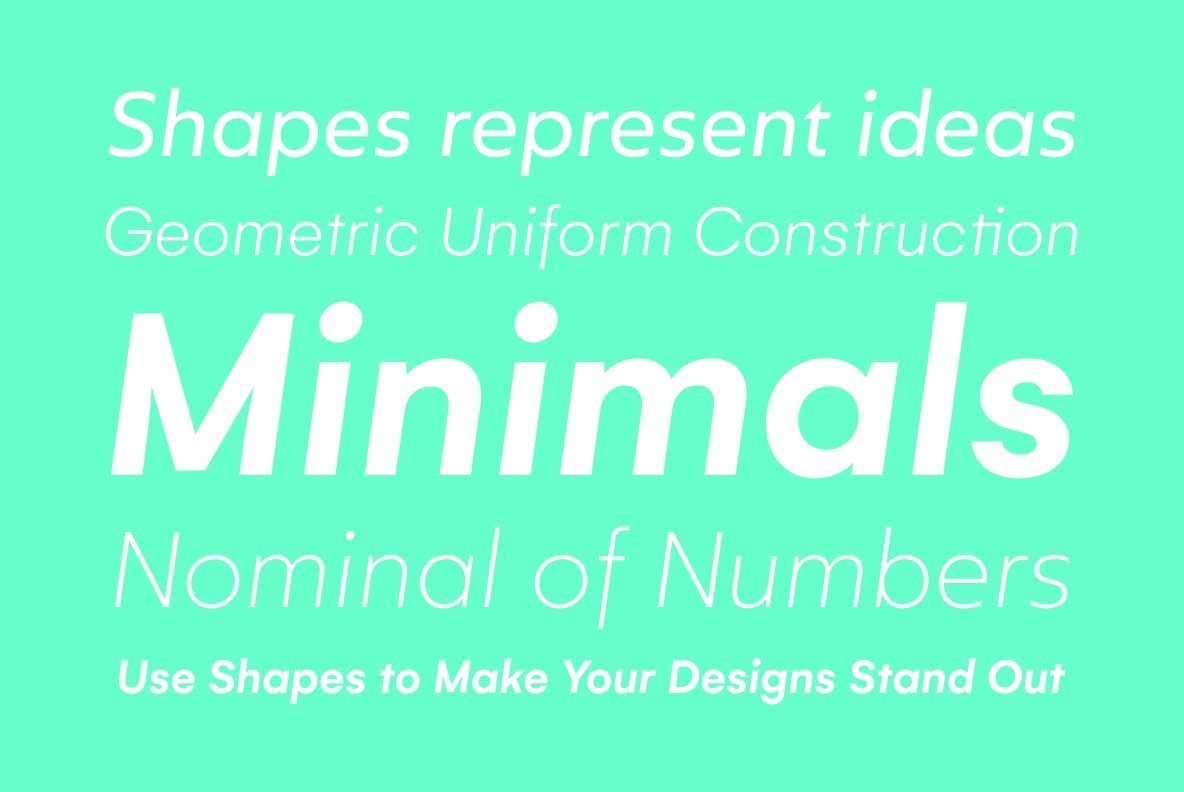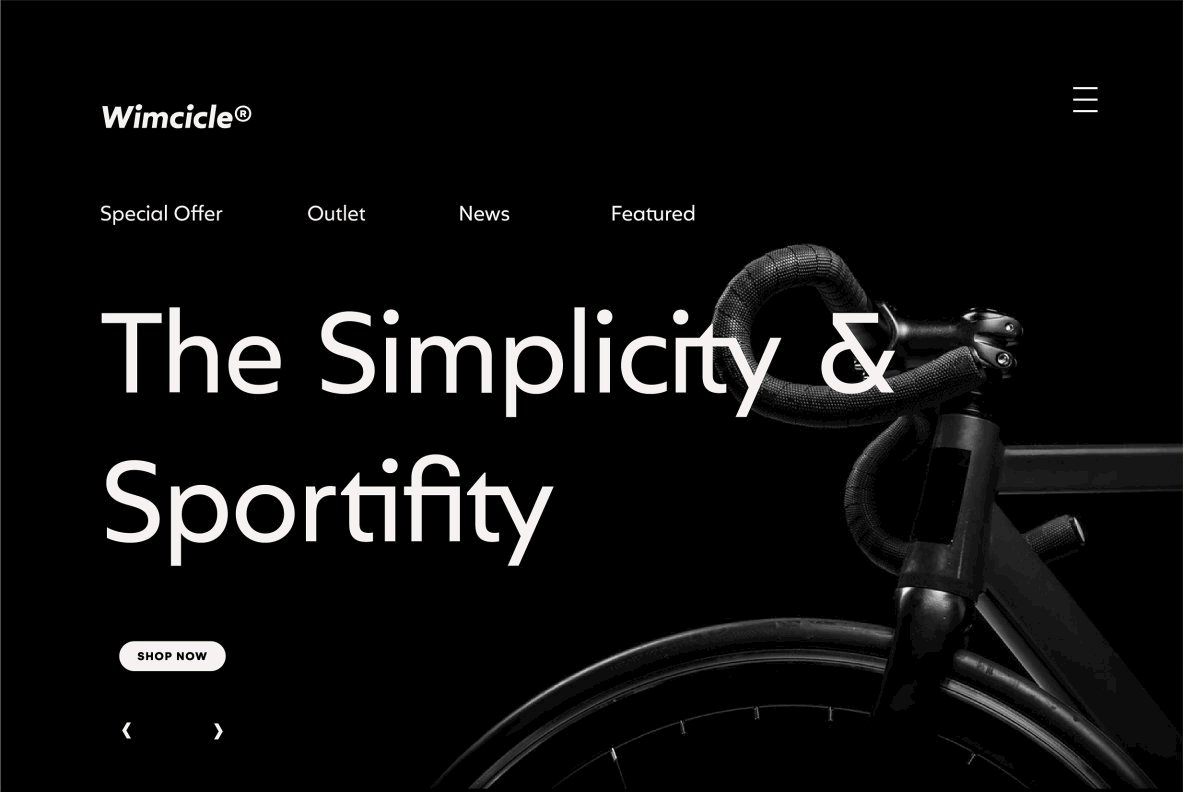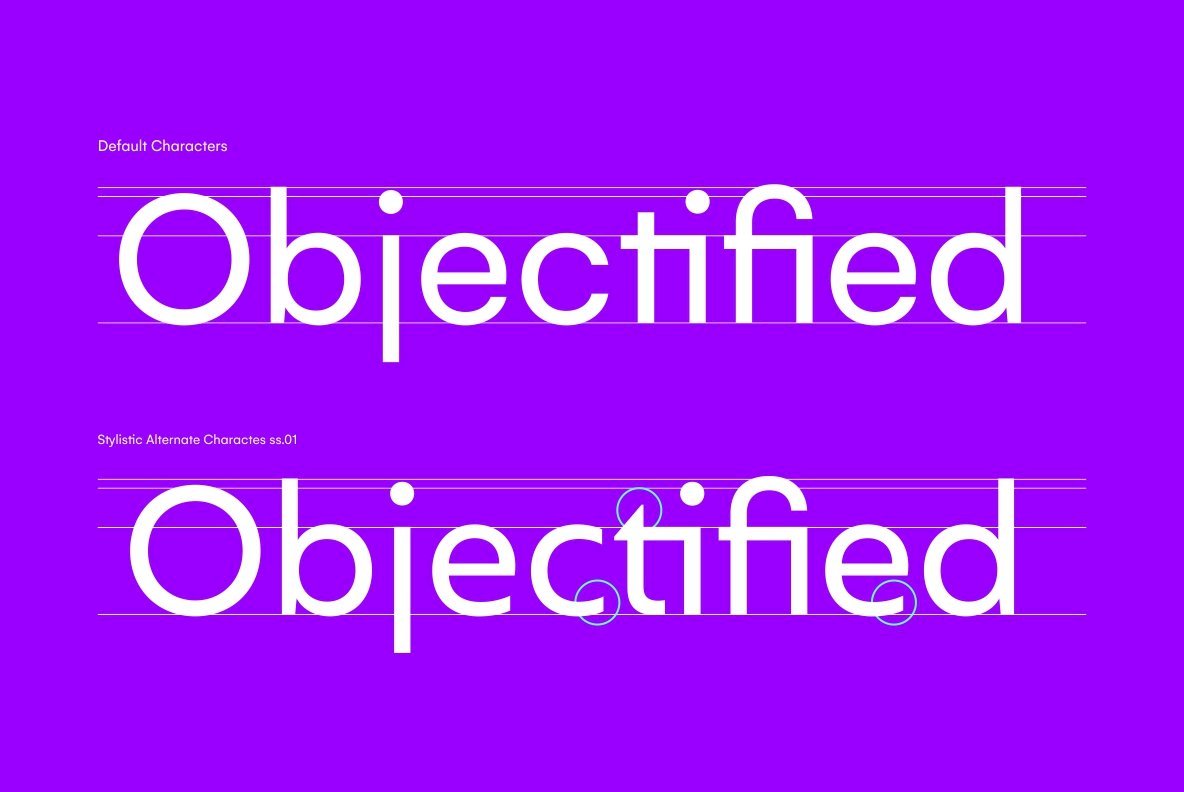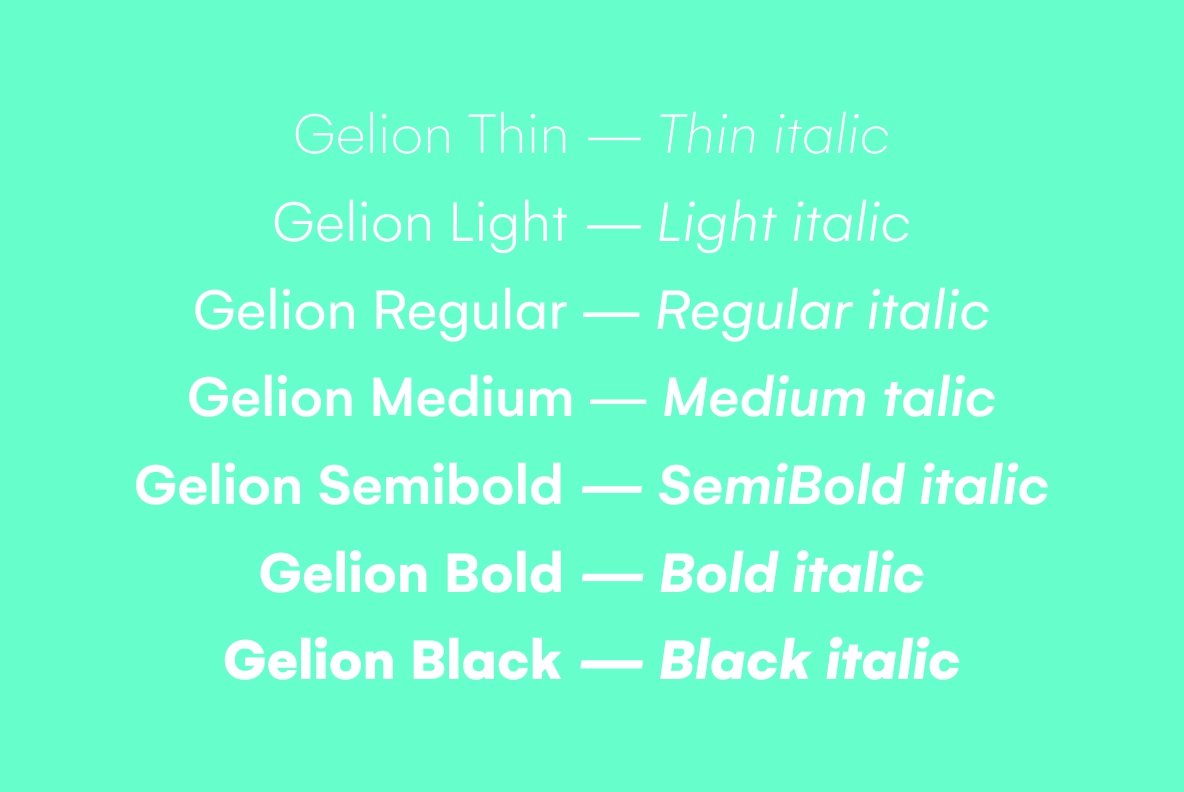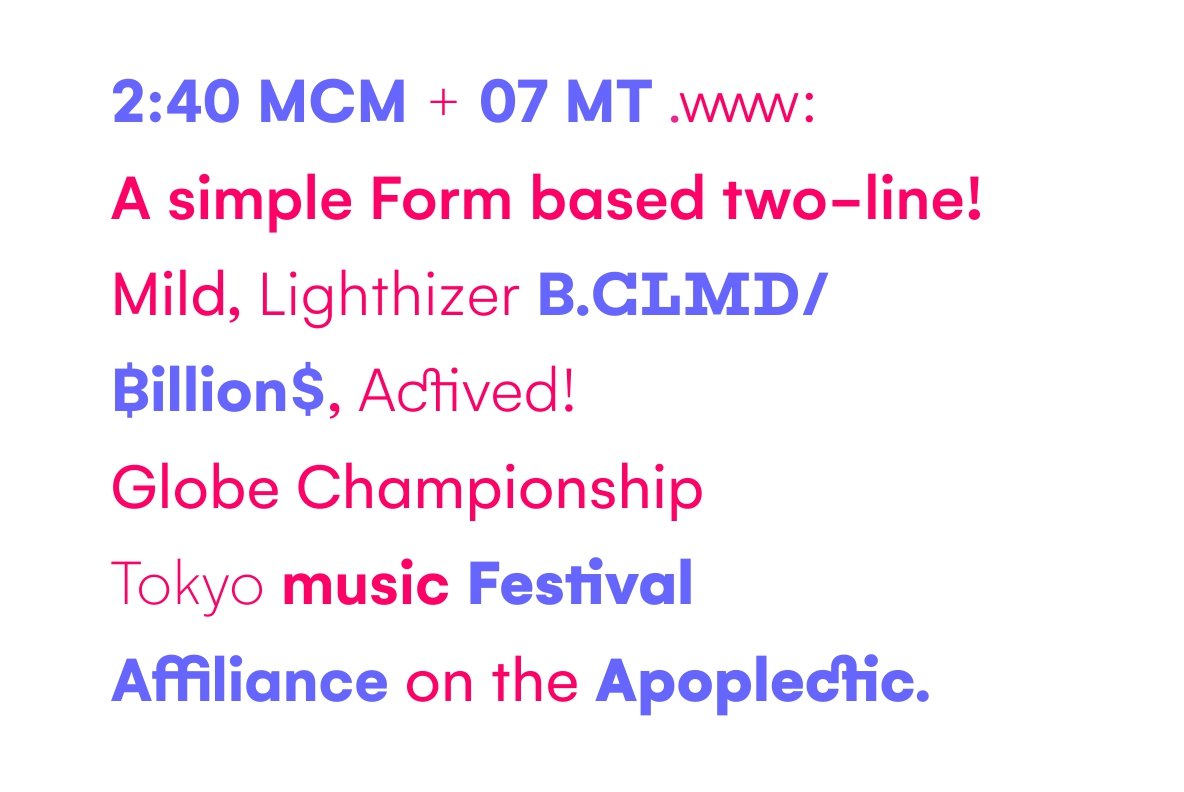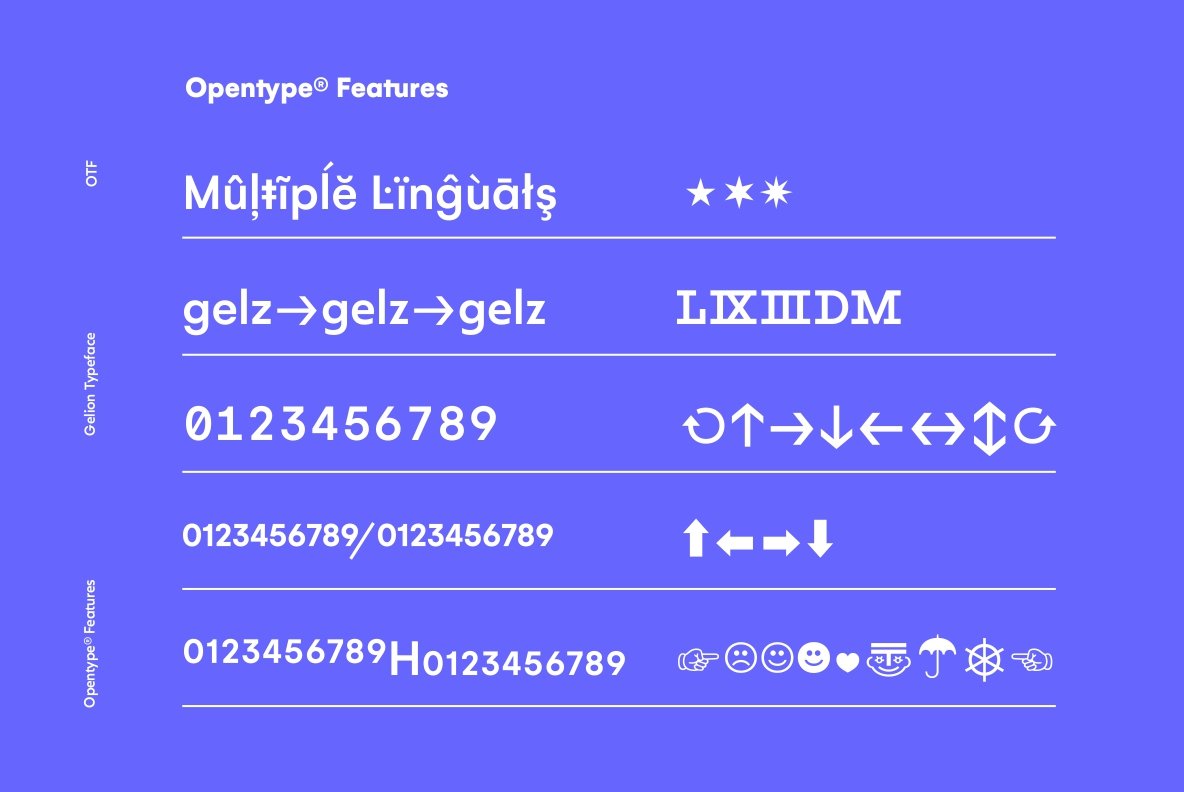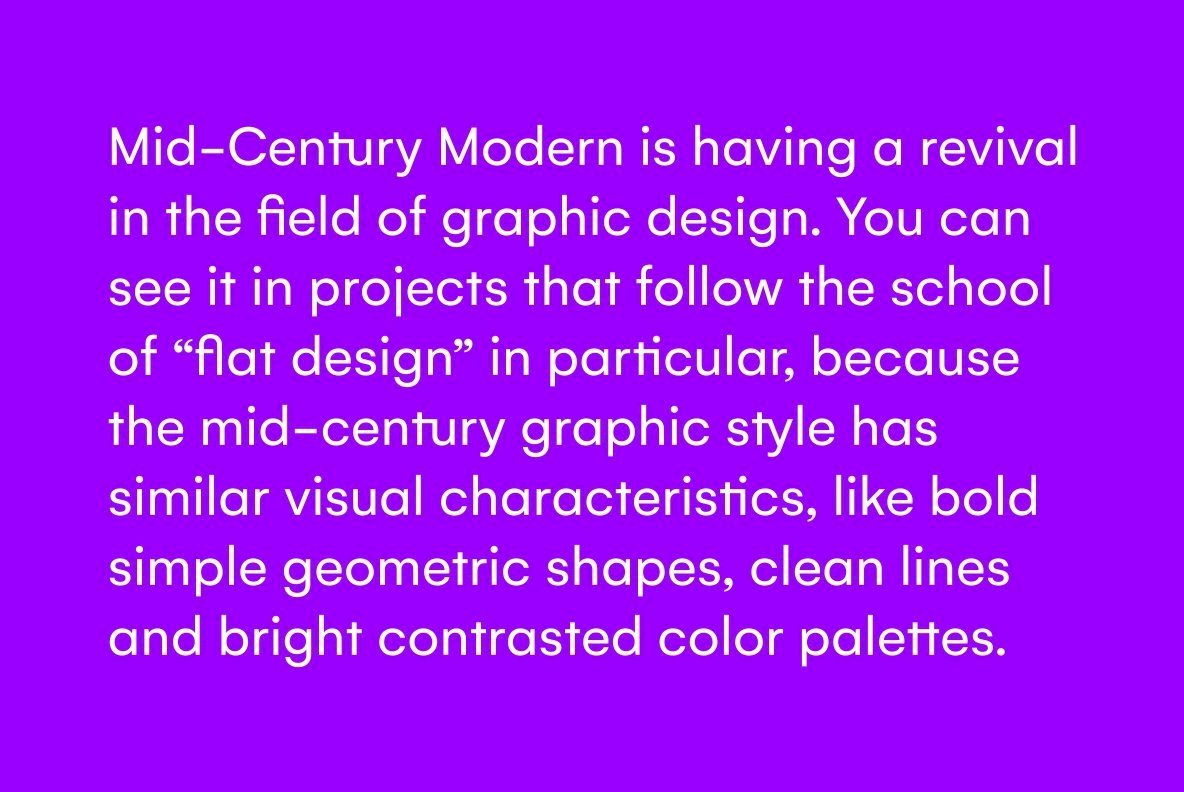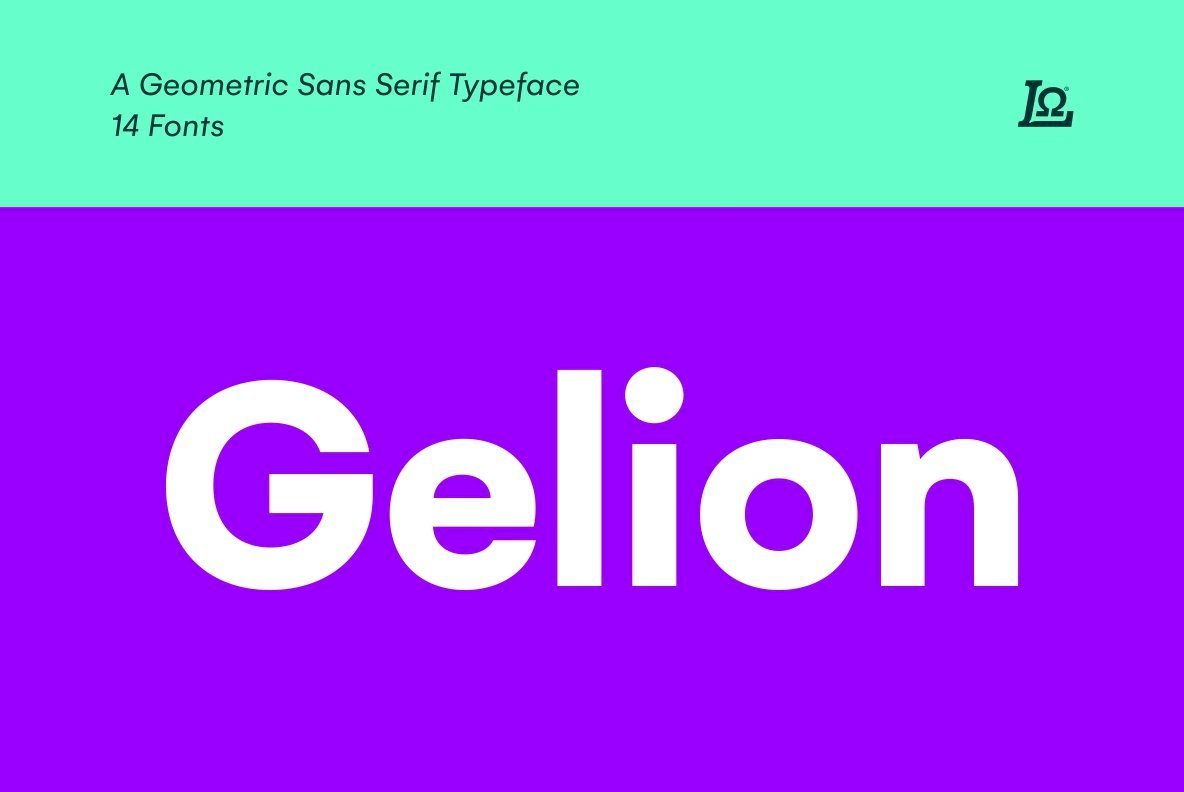
Gelion Font Family
Gelion is a Sans serif with a geometric touch with a minimal contrast of strokes, inspired by Futura, Avant Garde, Avenir and neo-grotesque Akzidenz-Grotesk, Helvetica form remaining true to the gracefully geometric look of the early 20th-century typefaces, that ticks off a long list of branding requirements.
With seven weights, and a clean italic carefully crafted slanted 8 degrees.
It is available in OpenType CFF and TTF fonts formats, like Ligature, Stylistic Alternate, Fractions, Tabular Lining, Subscript – Superscript, Symbols, Arrow, and more.